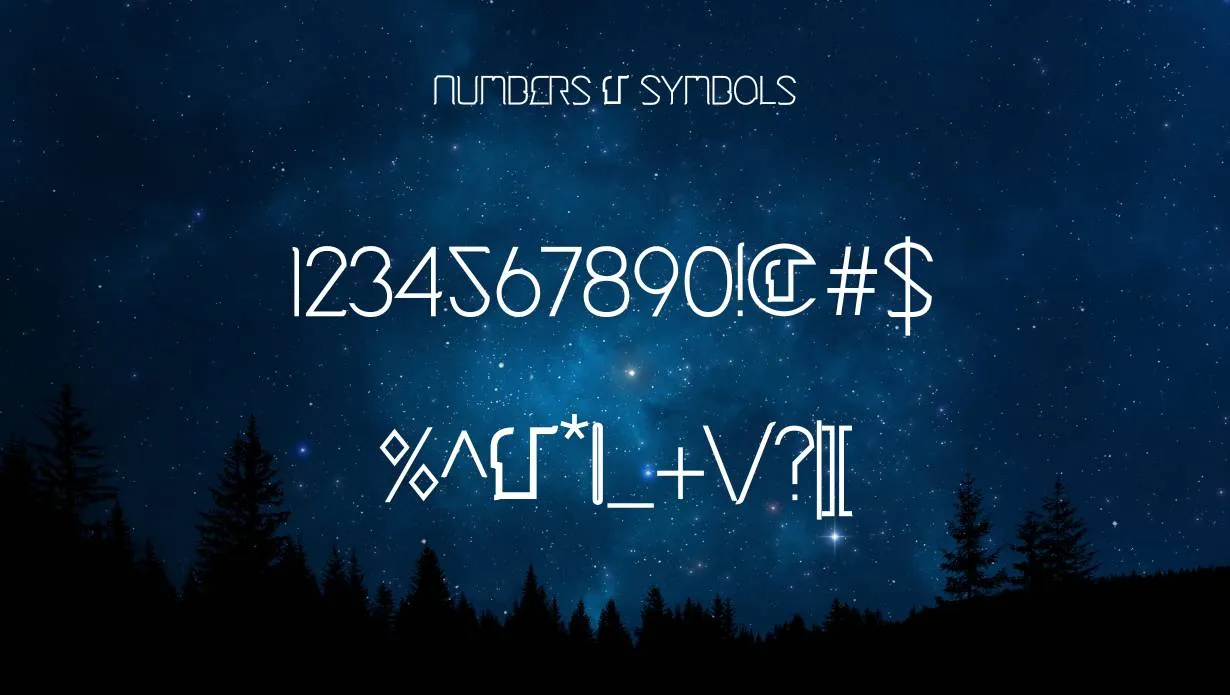
Presenting Cinga Font, a fancy font style that was created by a very talented designer Daniel Angemann along with both TTF and OTF formats.
| Name | Cinga Font |
| Designer | Daniel Angemann |